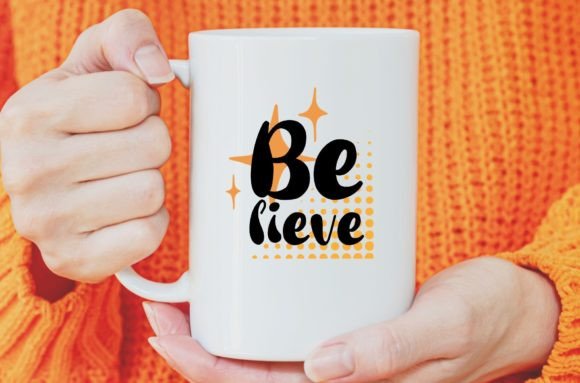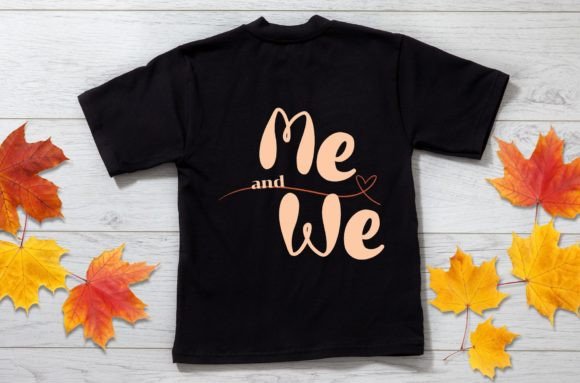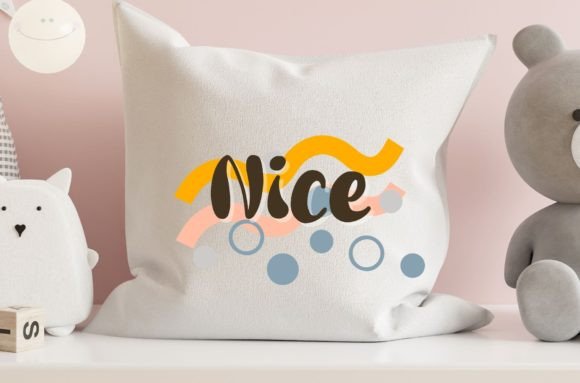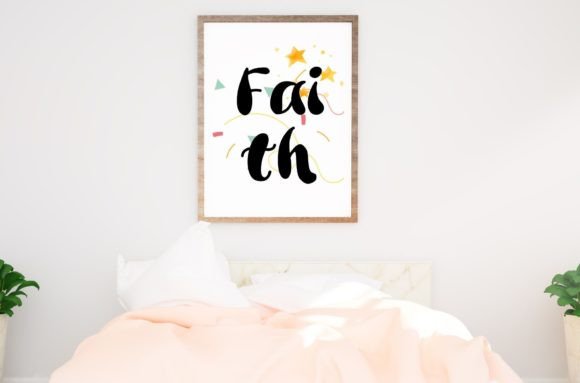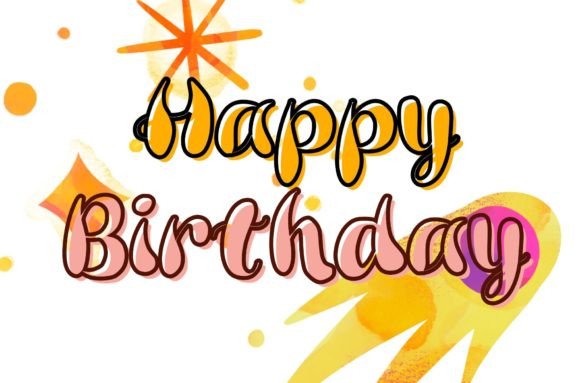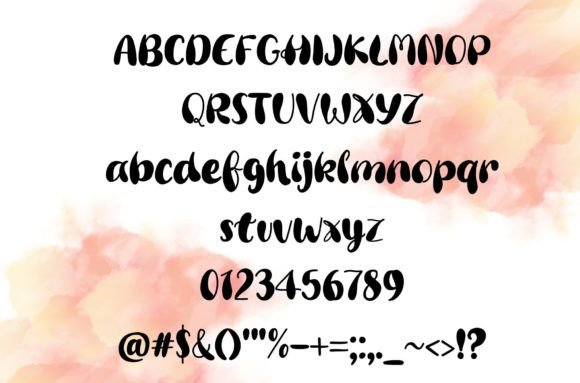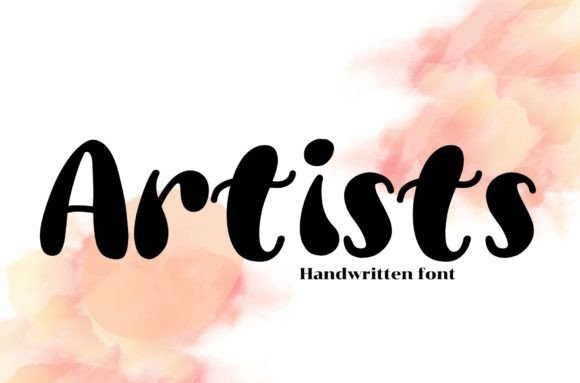
Introducing Artists Font: Elevate Your Designs with a Personal Touch
Are you a designer, crafter, or DIY enthusiast looking for a unique and versatile font to bring your creative projects to life? Look no further than Artists Font, a beautiful handwritten font that’s perfect for a wide range of applications. From logos and branding to wedding invitations, business cards, and social media graphics, Artists Font is the perfect addition to your design toolkit.
The Versatility of Artists Font
One of the standout features of Artists Font is its incredible versatility. This font is suitable for a wide range of projects, including:
- Logos and branding: Create a unique and memorable brand identity with Artists Font.
- Wedding invitations: Add a touch of elegance and sophistication to your wedding stationery.
- Business cards: Stand out from the crowd with a beautifully designed business card featuring Artists Font.
- Greeting cards: Create personalized and heartfelt greeting cards for any occasion.
- Posters and magazines: Use Artists Font to add a creative and artistic touch to your print materials.
- Social media graphics: Elevate your social media presence with eye-catching graphics featuring Artists Font.
- Planner prints: Add a personal touch to your planner or journal with Artists Font.
- Websites: Use Artists Font to create a unique and memorable online presence.
Perfect for Children’s Designs and More
Artists Font is especially useful for children’s designs, making it a great choice for:
- T-shirts and kids’ apparel: Create fun and playful designs that kids will love.
- Mugs and ceramics: Add a personal touch to your home decor or gifts.
- Posters and prints: Create colorful and engaging posters and prints for kids’ rooms or nurseries.
Why Choose Artists Font?
So why choose Artists Font for your design projects? Here are just a few reasons:
- Unique and handmade**: Artists Font has a unique, handmade feel that’s perfect for adding a personal touch to your designs.
- Easy to read**: Despite its artistic feel, Artists Font is easy to read and understand, making it perfect for body text and headings.
- Highly versatile**: As mentioned earlier, Artists Font is suitable for a wide range of projects and applications.
- Great for kids’ designs**: Artists Font is especially useful for children’s designs, making it a great choice for kids’ apparel, posters, and more.
Tips for Using Artists Font
Here are a few tips for getting the most out of Artists Font:
- Experiment with colors**: Artists Font looks great in a variety of colors, so don’t be afraid to experiment and find the perfect hue for your design.
- Mix and match**: Try pairing Artists Font with other fonts or graphics to create a unique and eye-catching design.
- Use it for headings and titles**: Artists Font is perfect for headings and titles, so use it to add a touch of elegance and sophistication to your designs.
| Font Name | Artists Font |
| Author | PeamCreations |
Artists Font is a beautiful and versatile handwritten font that’s perfect for designers, crafters, and DIY enthusiasts. With its unique and handmade feel, ease of use, and high versatility, Artists Font is the perfect addition to your design toolkit. Whether you’re creating logos and branding, wedding invitations, or kids’ designs, Artists Font is sure to bring your creative projects to life.